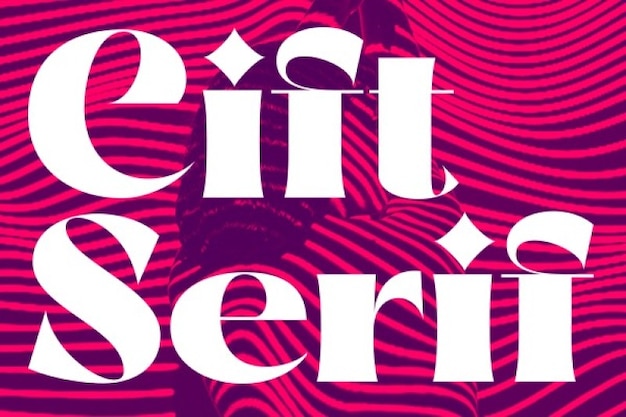
Cift
Cift Font
Cift is a colorful font that will help you to add a sixties touch to all your creations. Create unique invitation cards or posters with this format, download it right away to start creating!